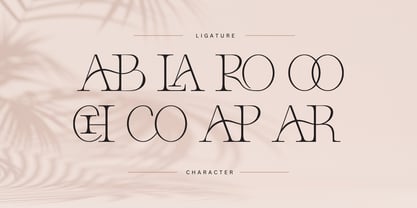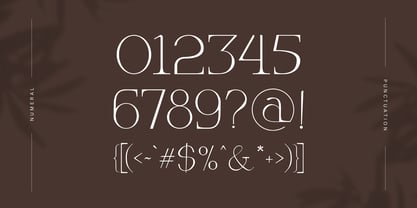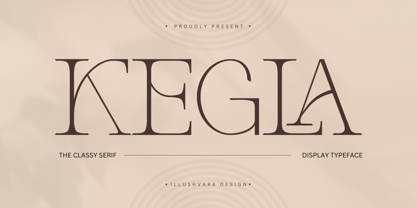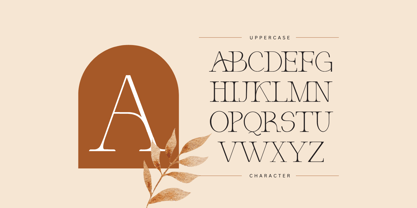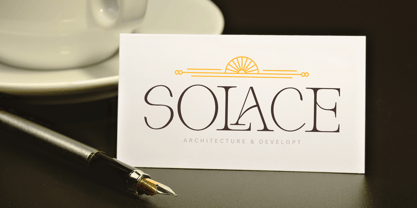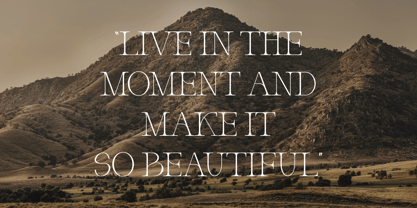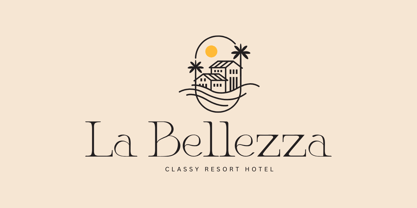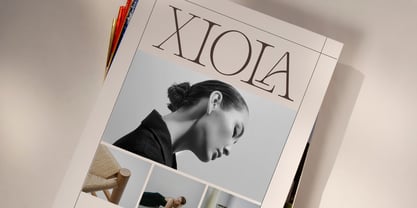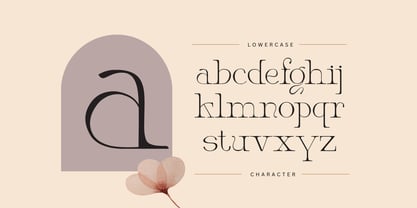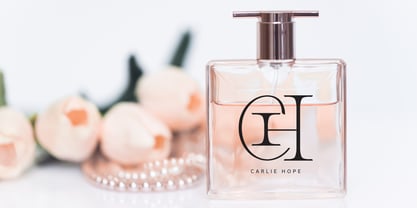
Kegla
by Illushvara
The Kegla Font Family was designed by Bayu Suwirya and published by Illushvara. Kegla contains 1 styles.
Kegla is a sophisticated serif display font that exudes elegance and refinement. Designed with luxurious curves and striking contrasts, it features graceful ligatures that enhance its fluidity and charm. Perfect for high-end branding, editorial designs, and stylish invitations, Kegla blends timeless beauty with modern flair. Its meticulously crafted letterforms and distinctive details make it a standout choice for designers seeking a classy, sophisticated typeface with character and grace.